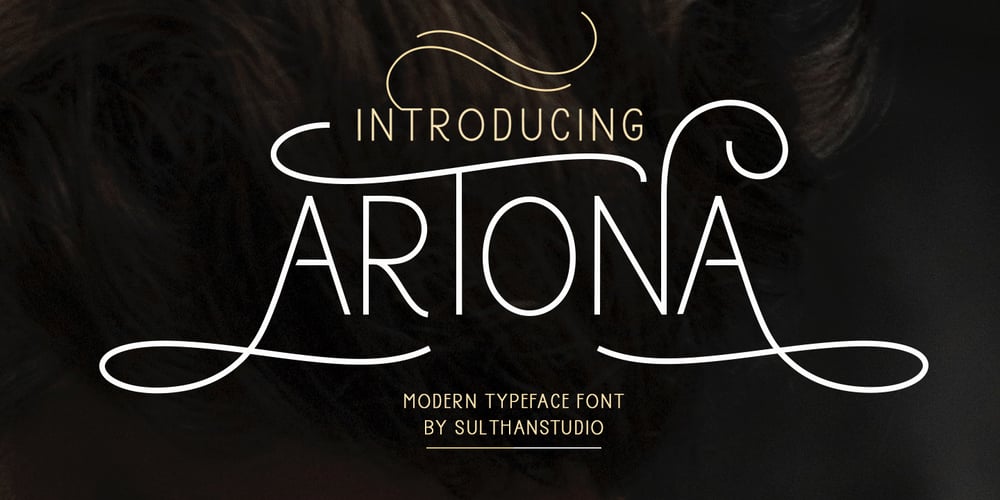
Artona
Artona font
Artona Font Family was designed by Nasrullah and published by Sulthan Studio. Artona contains 1 styles and family package options. is a modern sans serif typeface that is very stylish with lots of uppercase characters A.1,A.2,A.3,A.4 or also N.1 to N.10 and uppercase letters that other .It also has separate swashes to add uniqueness to your work. features 339 glyphs upper and lower case, numbers, punctuation, alternatives, swash, and multiple language support